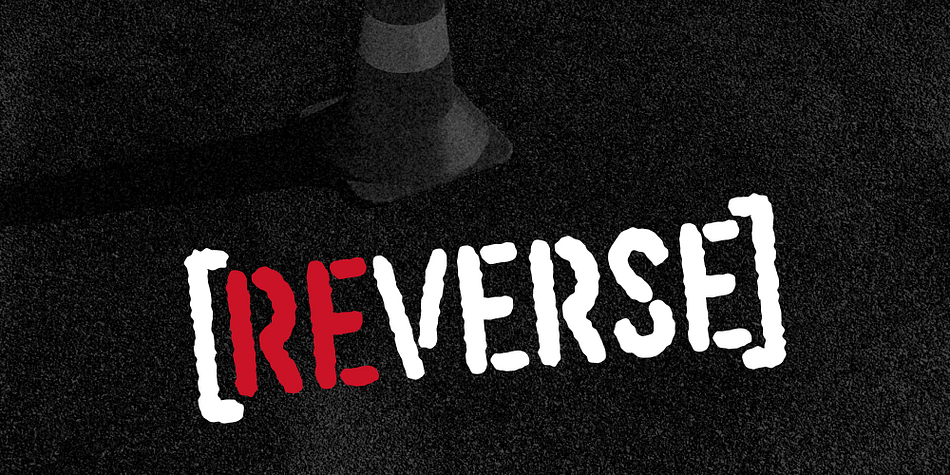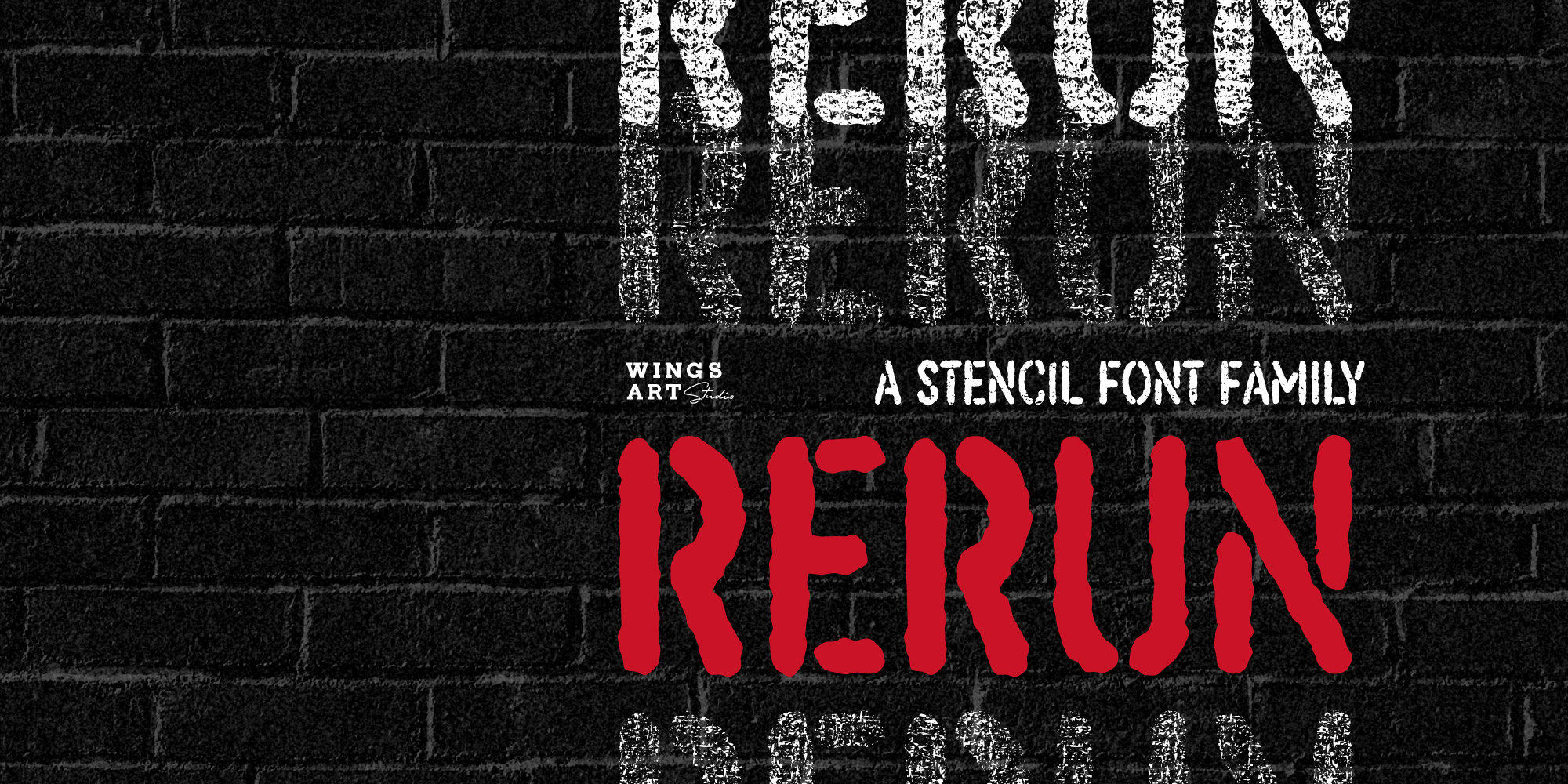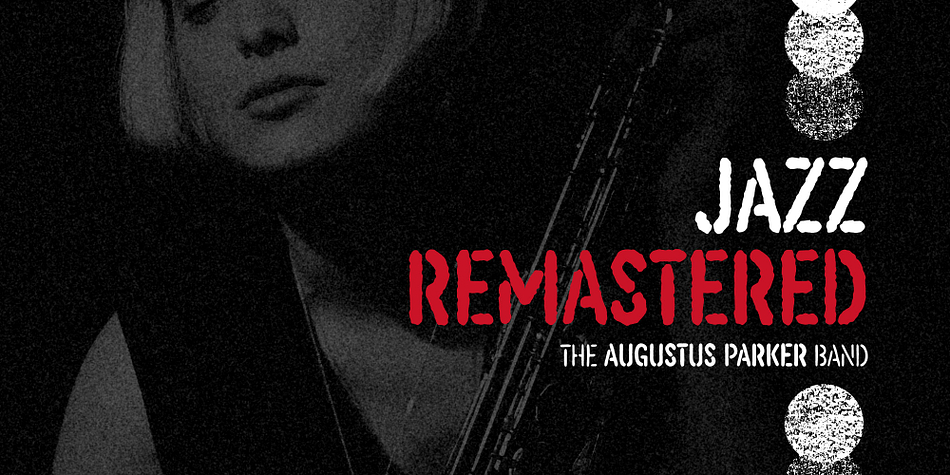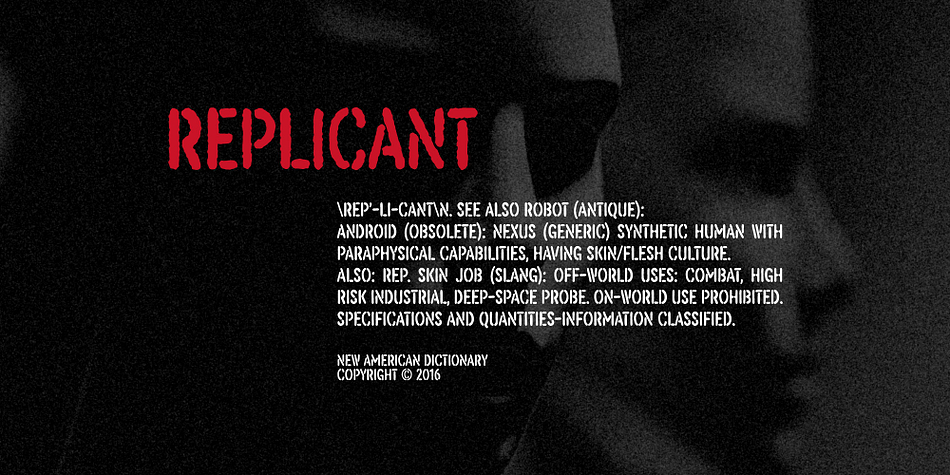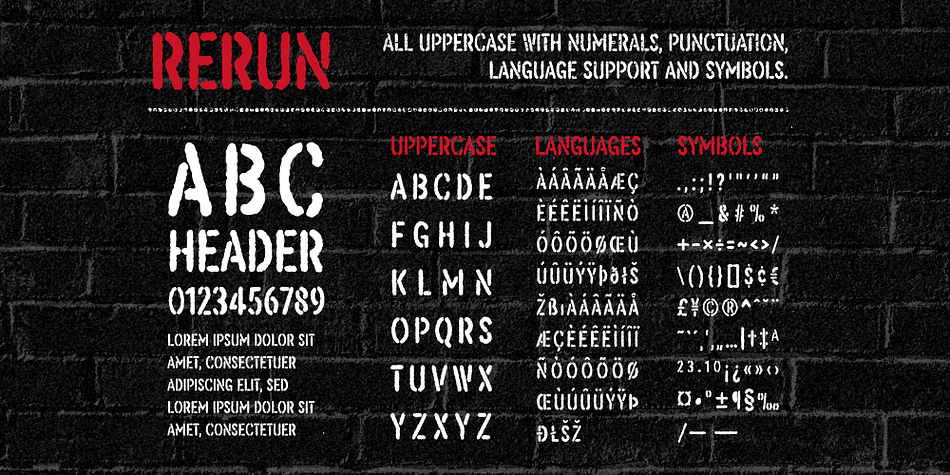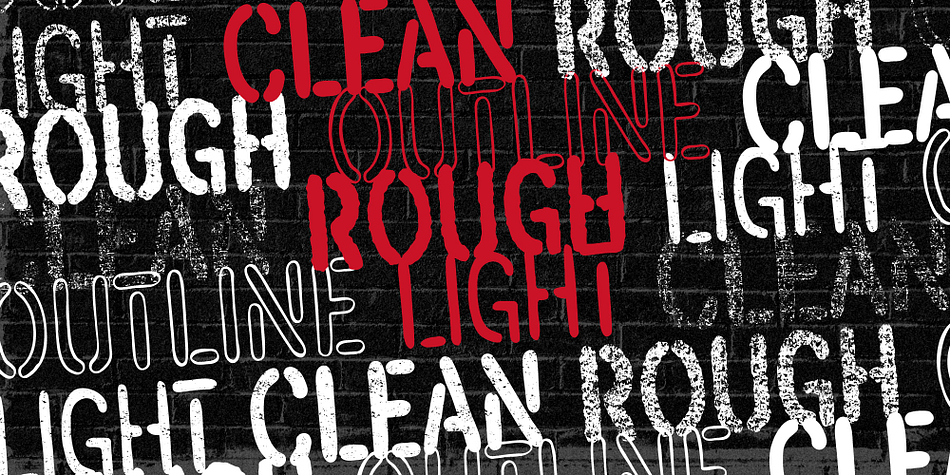
ReRun
ReRun is a stencil font family. This typeface has four styles and was published by Wingsart Studio.
A hand-drawn stencil font for video games and film titles with a grungy urban design.
This all-caps display font offers a simple way to replicate the look of hand-drawn or sprayed-on stencil lettering. An industrial style that’s used for its quick real-world applications found on everything from roadworks, storage containers, and military vehicles; with an urban visual language uniquely suited to video games, film titles, and album covers. See above for more usage ideas.
This font family includes uppercase-only characters, plus all punctuation, numerals, and language support.